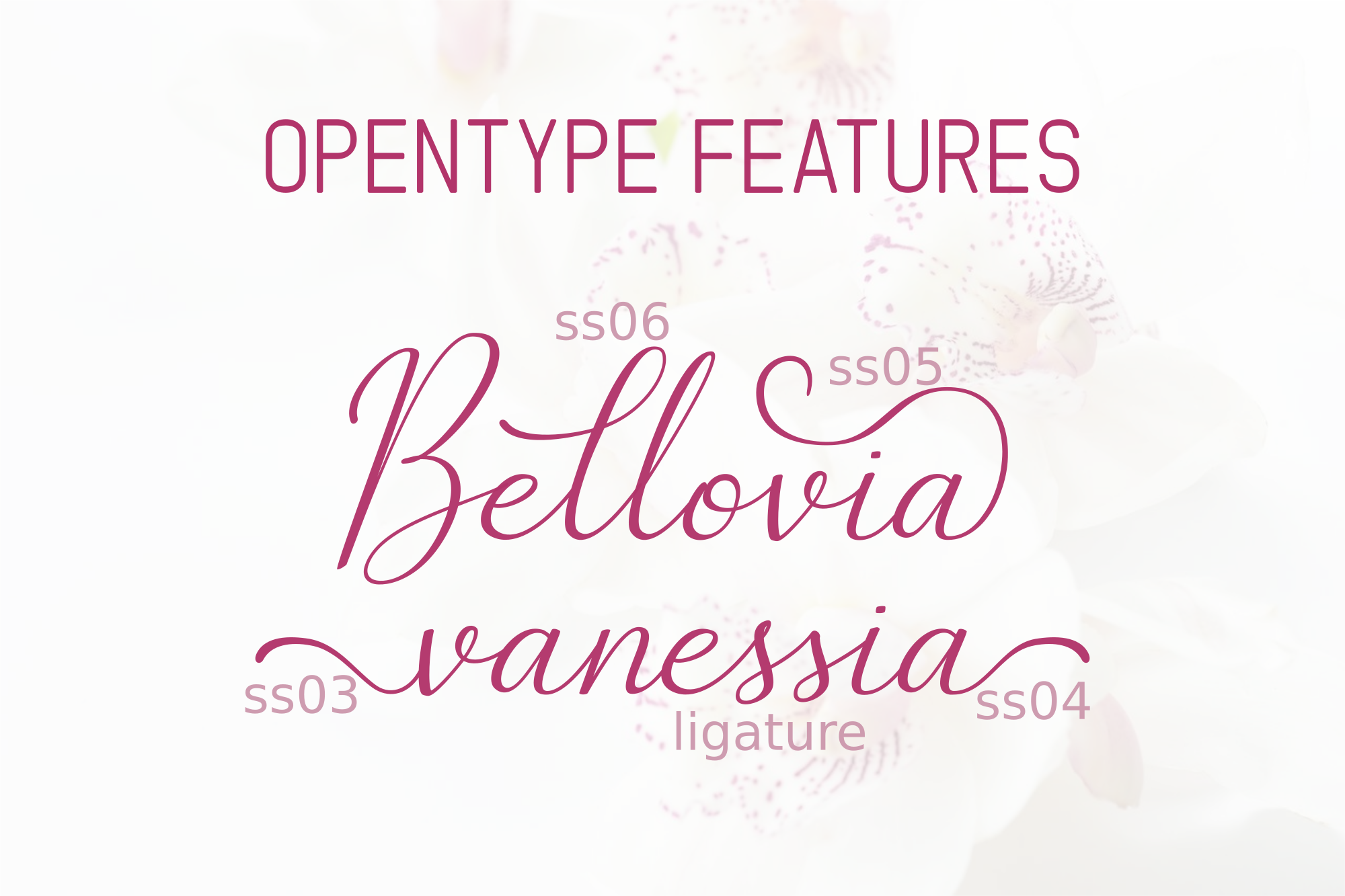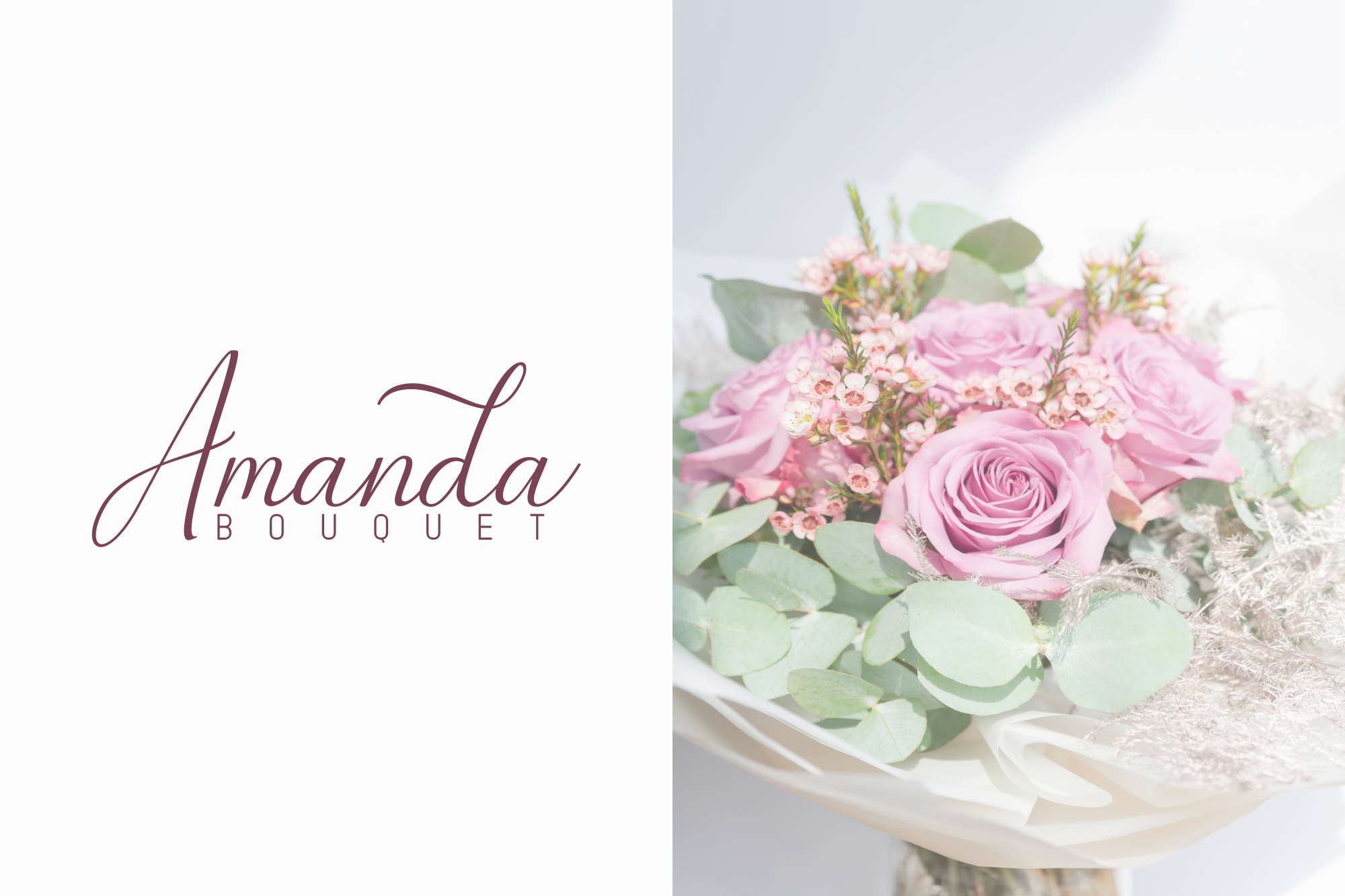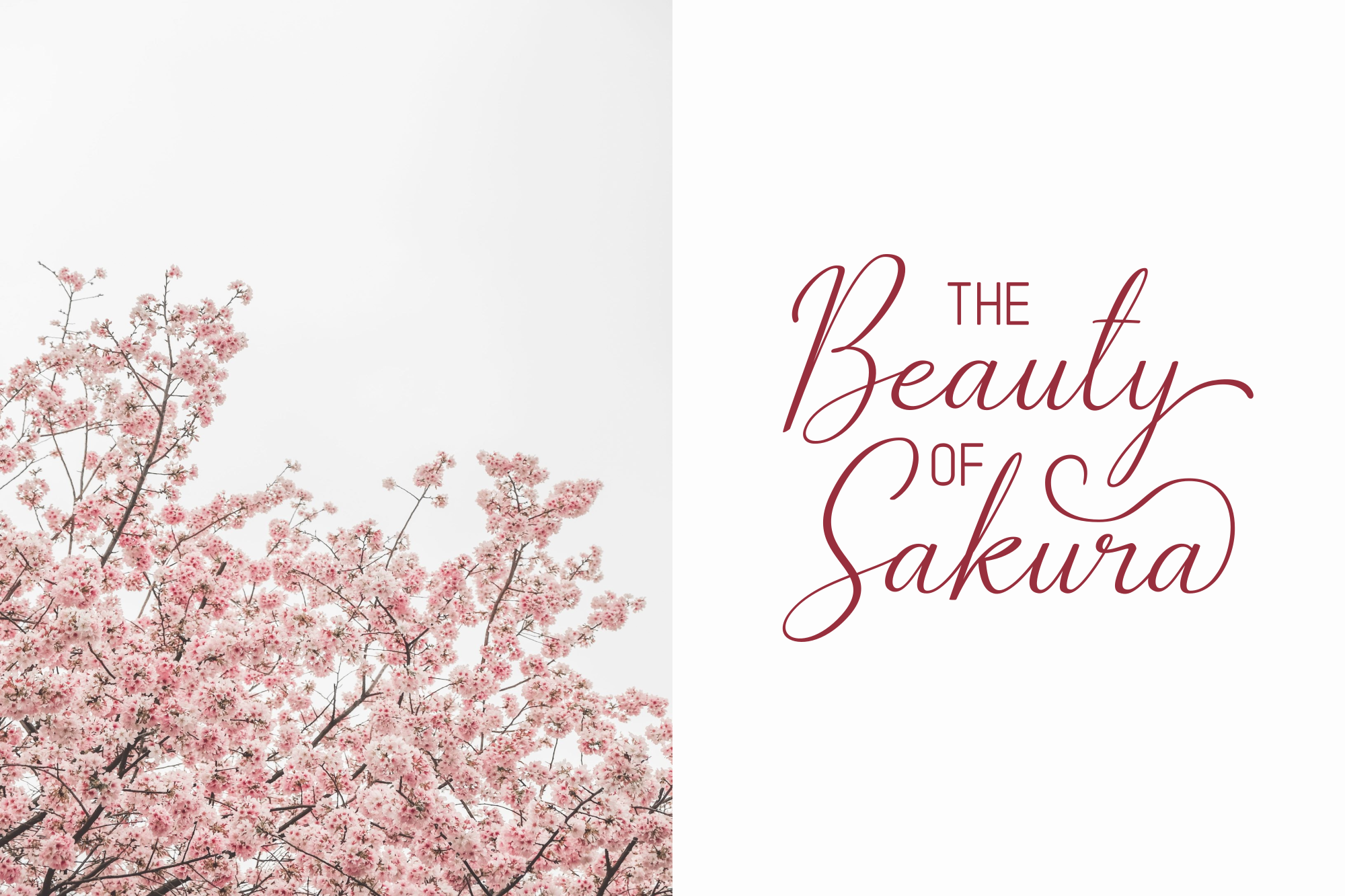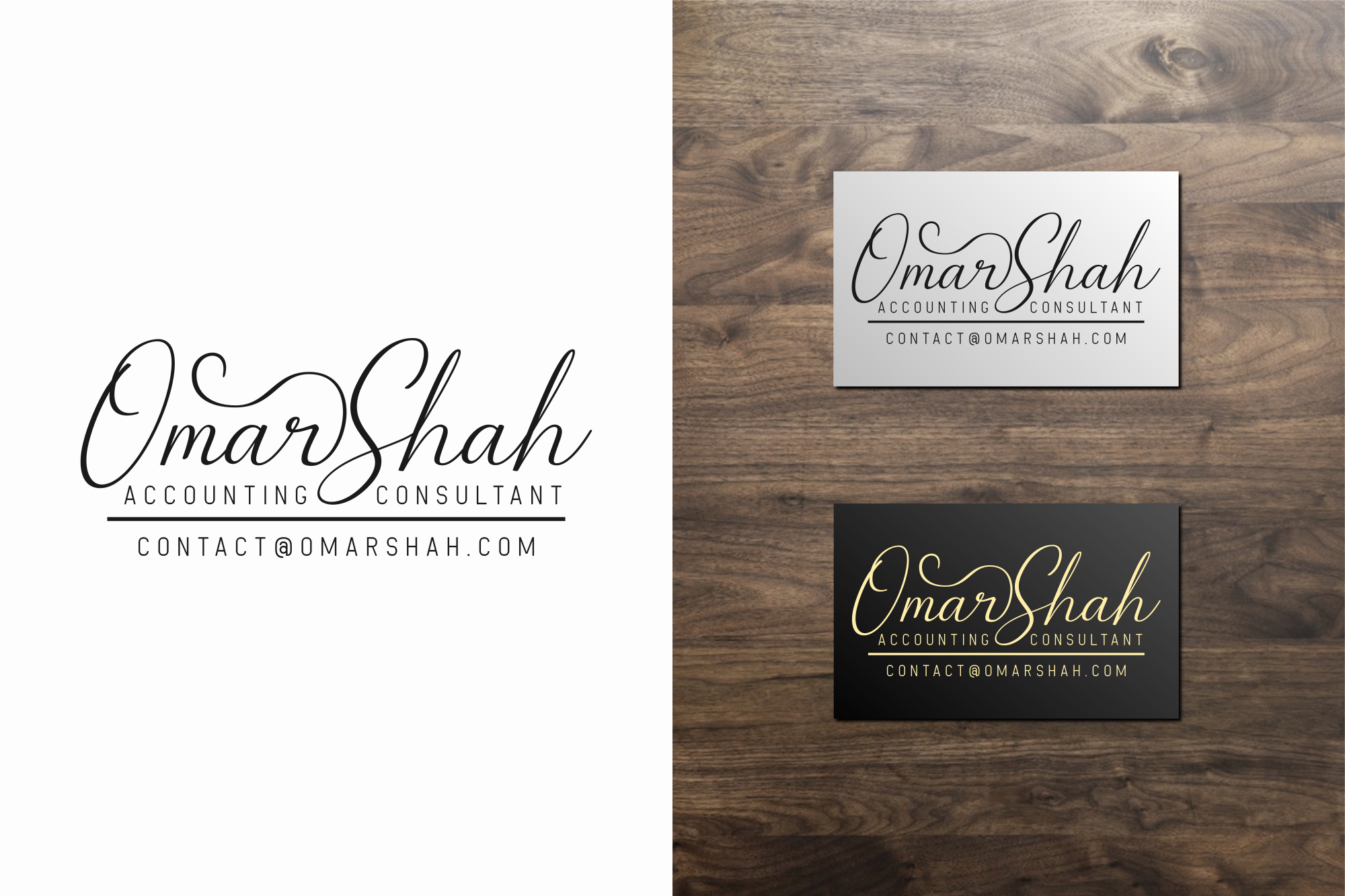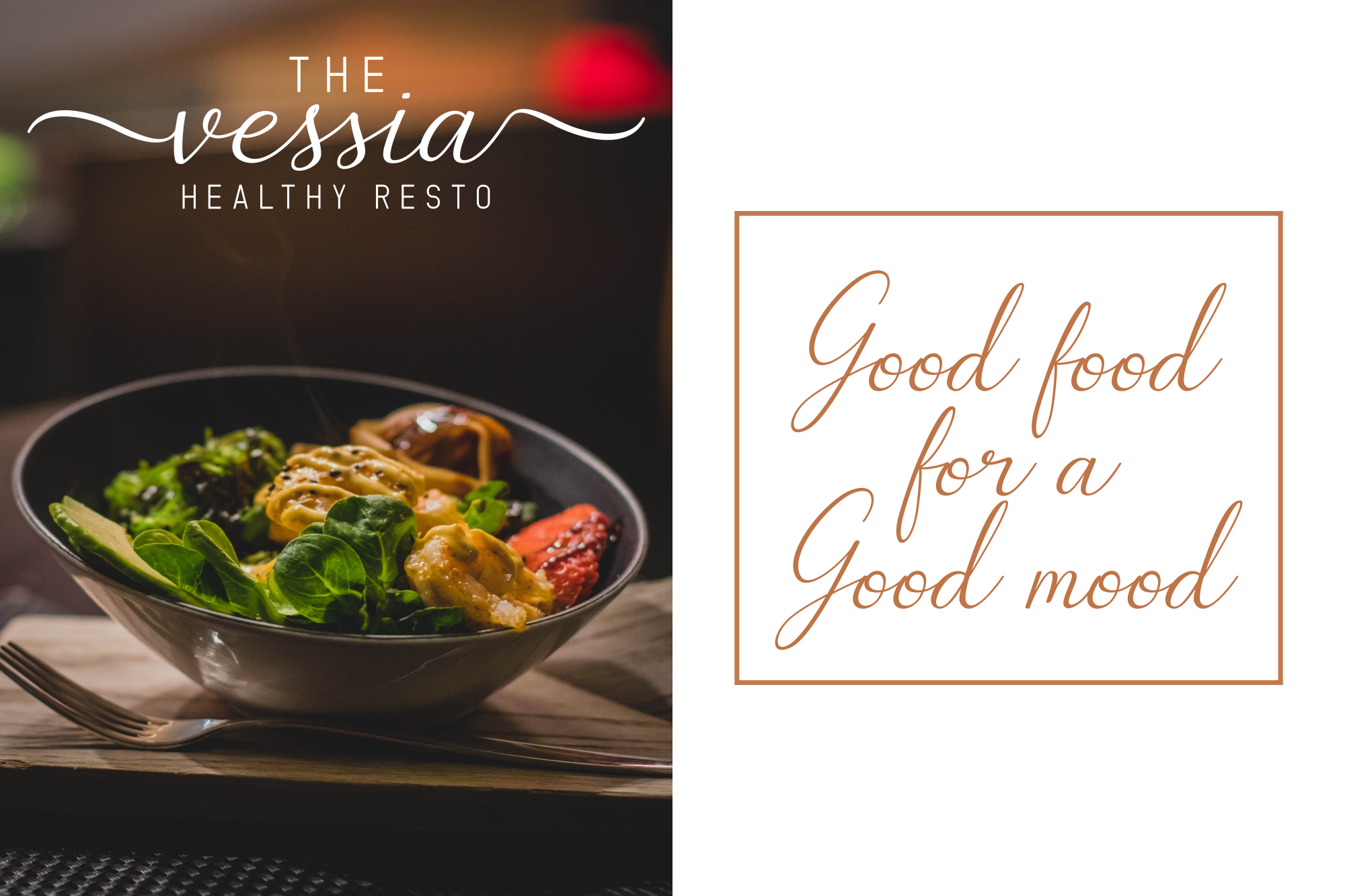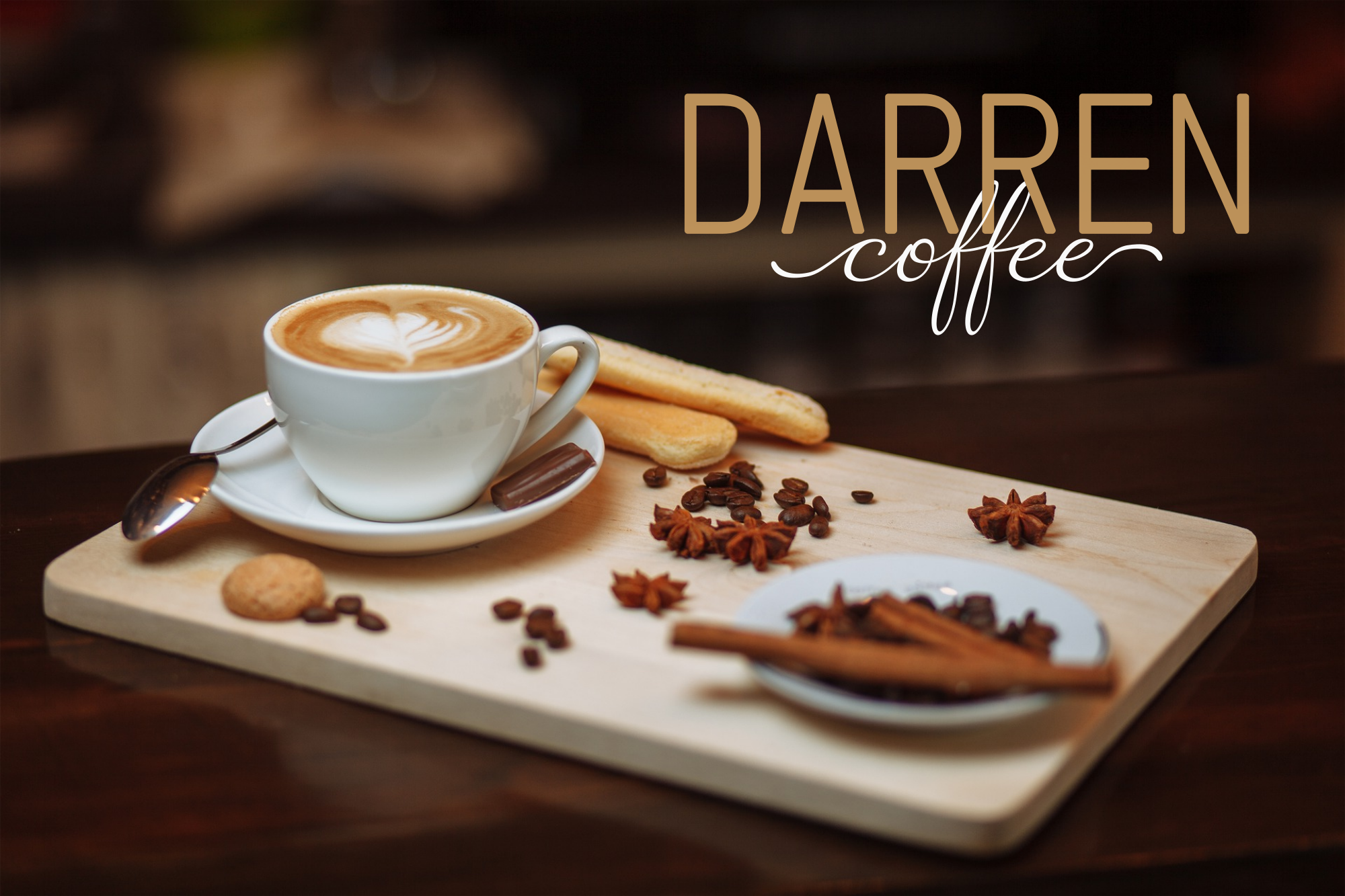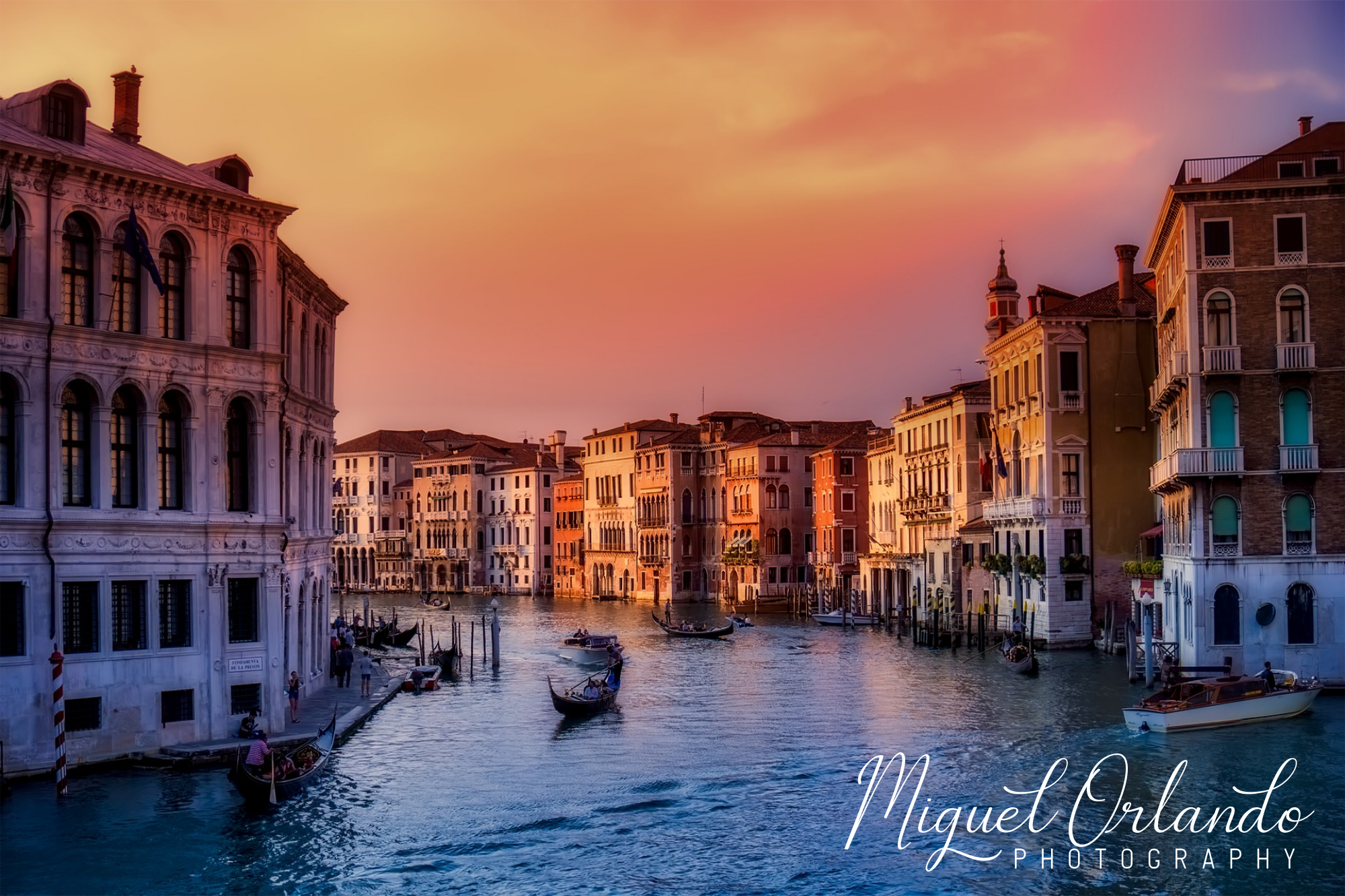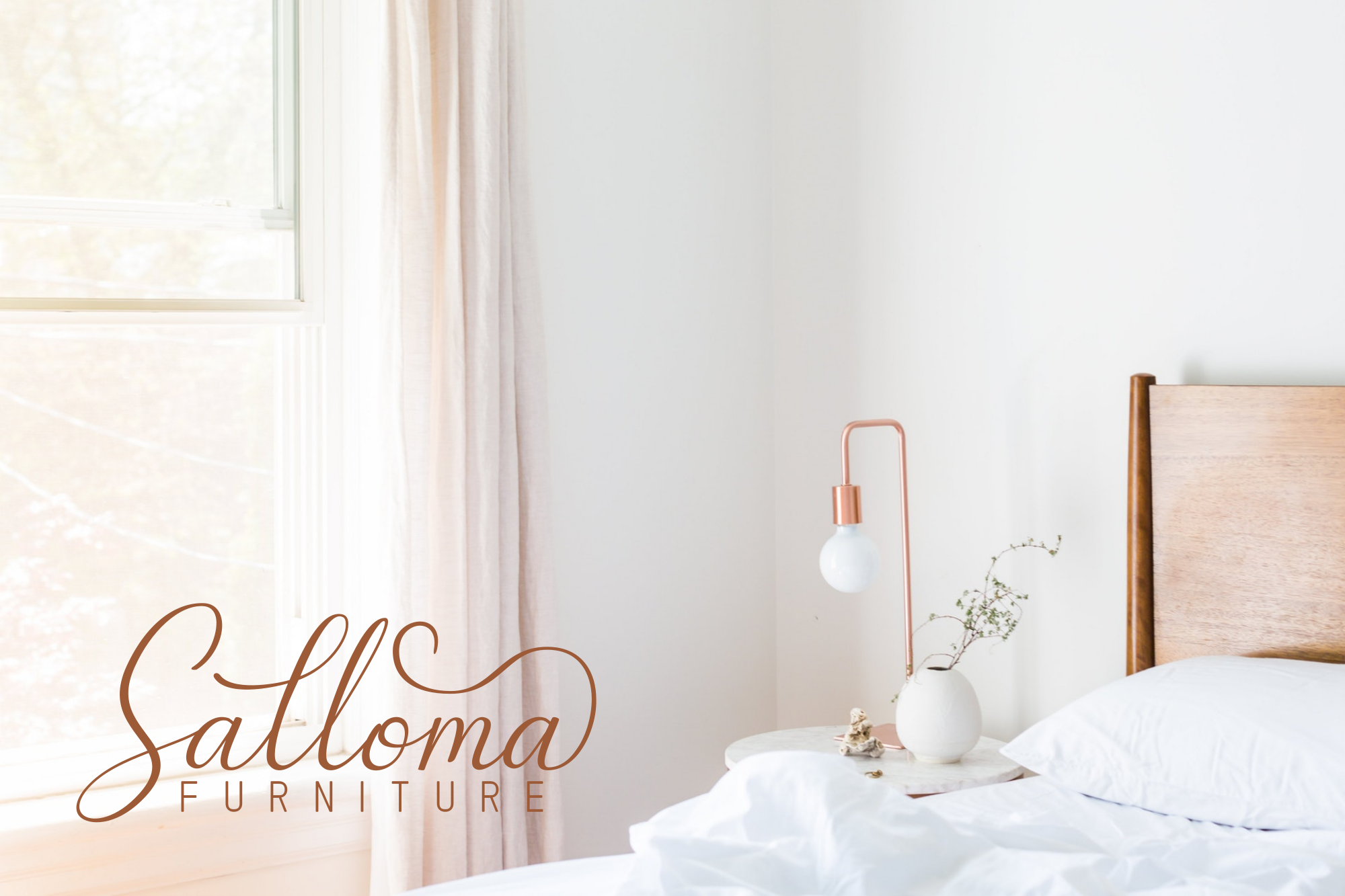
The Bellovia - Font Duo
The Bellovia is a beautiful font duo with a pair of elegant typefaces consisting of a script and sans serif font. The beautiful script and rounded sans serif match perfectly and bring a luxury and classy feeling to your design.
The Bellovia is a beautiful font duo with a pair of elegant typefaces consisting of a script and sans serif font. The beautiful script and rounded sans serif match perfectly and bring a luxury and classy feeling to your design. This classy duo is easy to use and has great readability. It can be used for watermarks, signature logos, business cards, quotes, invitations, and much more.
The Bellovia duo
Watermarks, signature logos, business cards, quotes, invitations, and much more